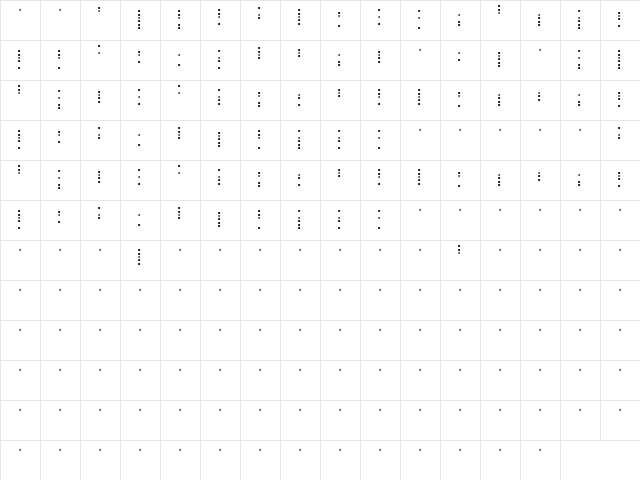
Papertape Regular
| Foundry | Matthias Jordan, published by Fontshop International for the FontFont library |
Design Context for Papertape Typeface
Papertape is a composed and adaptable typeface that performs quietly and consistently across a wide range of design contexts.